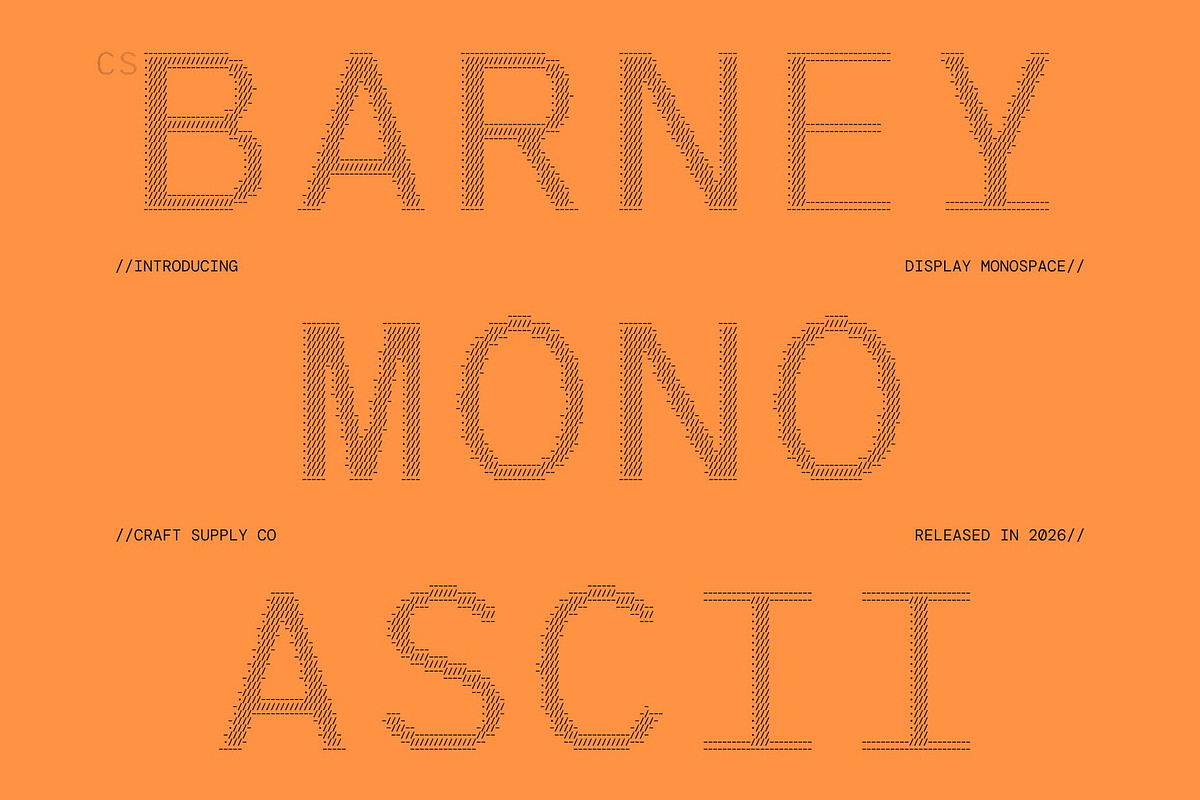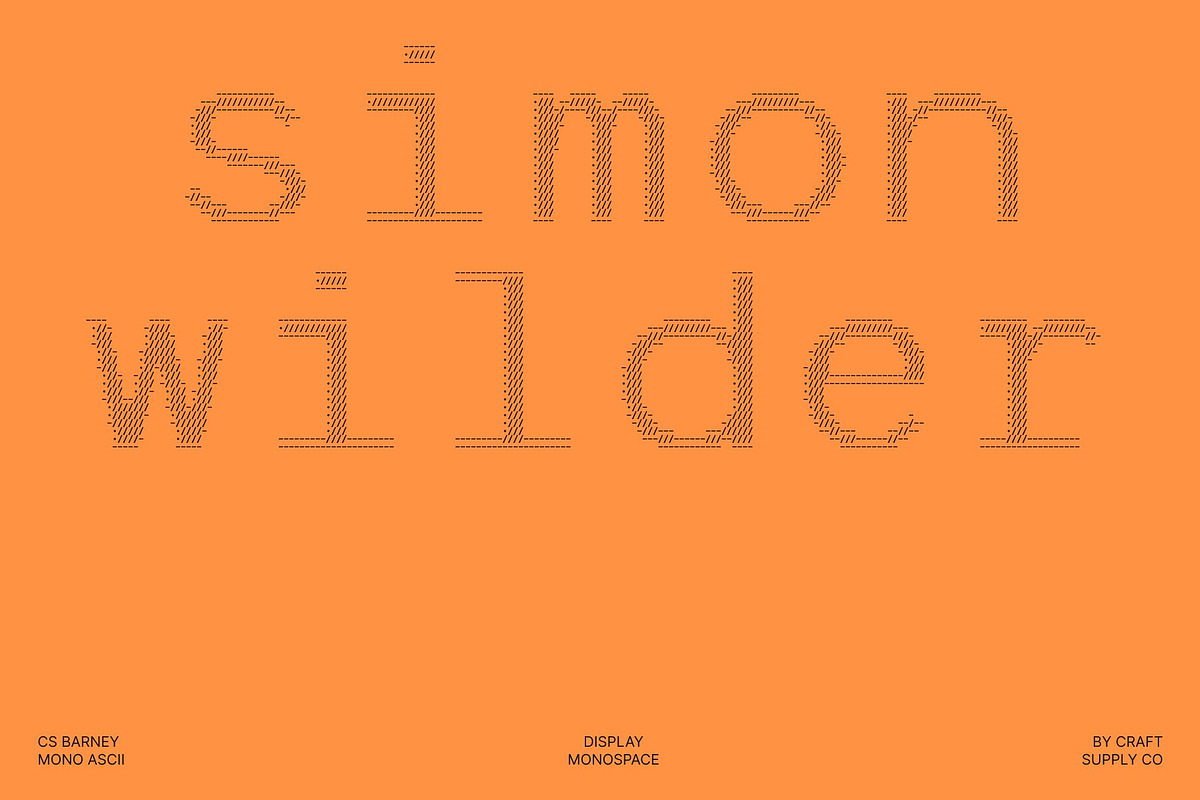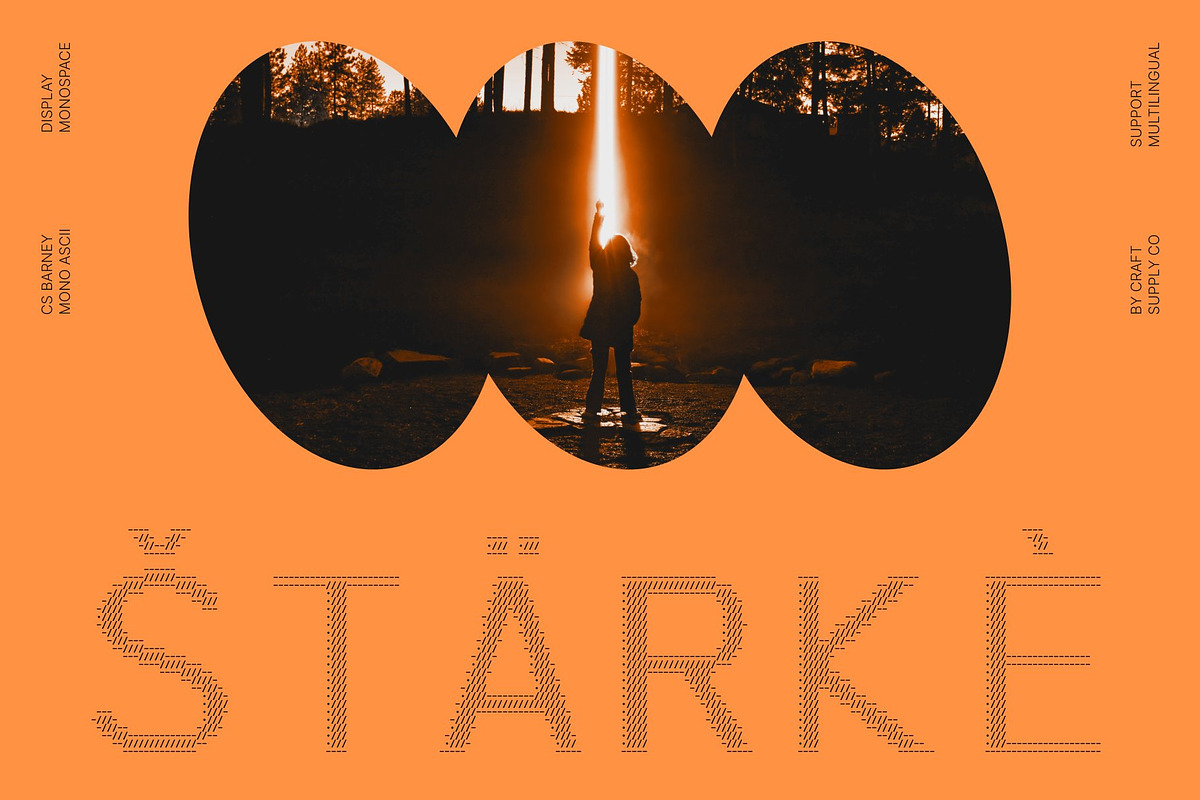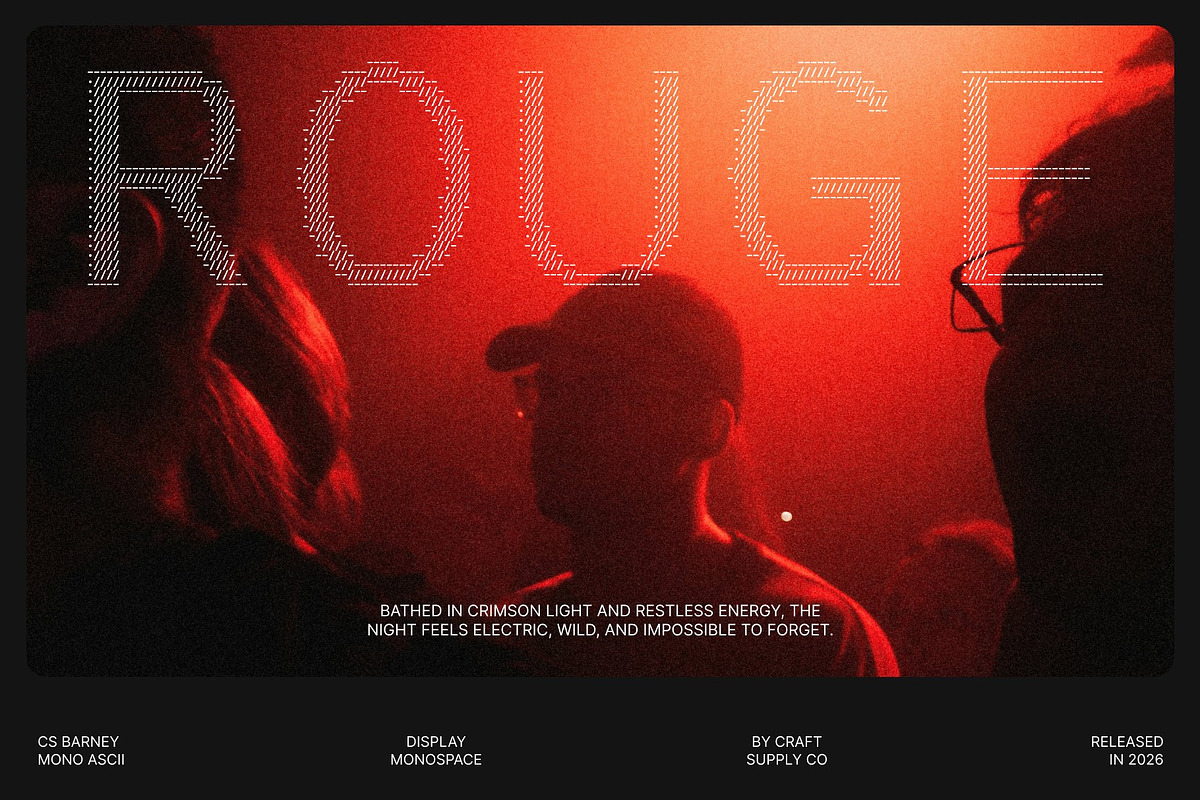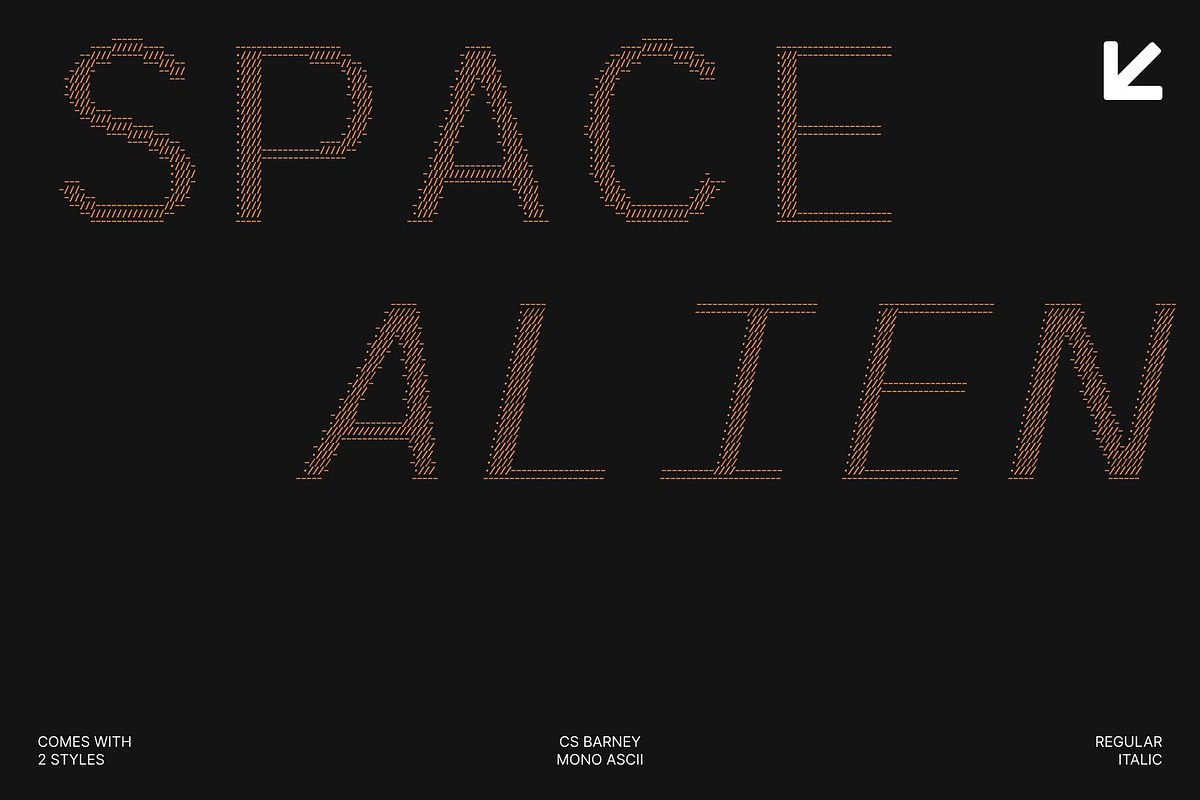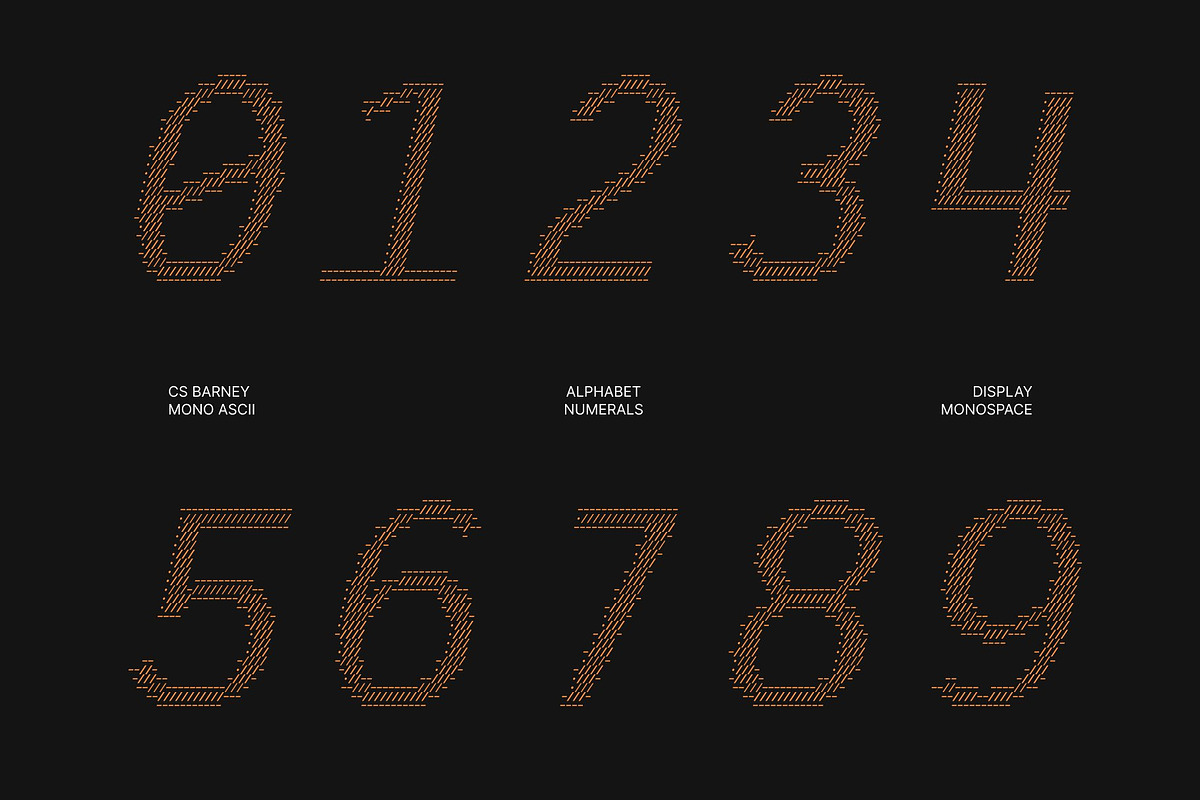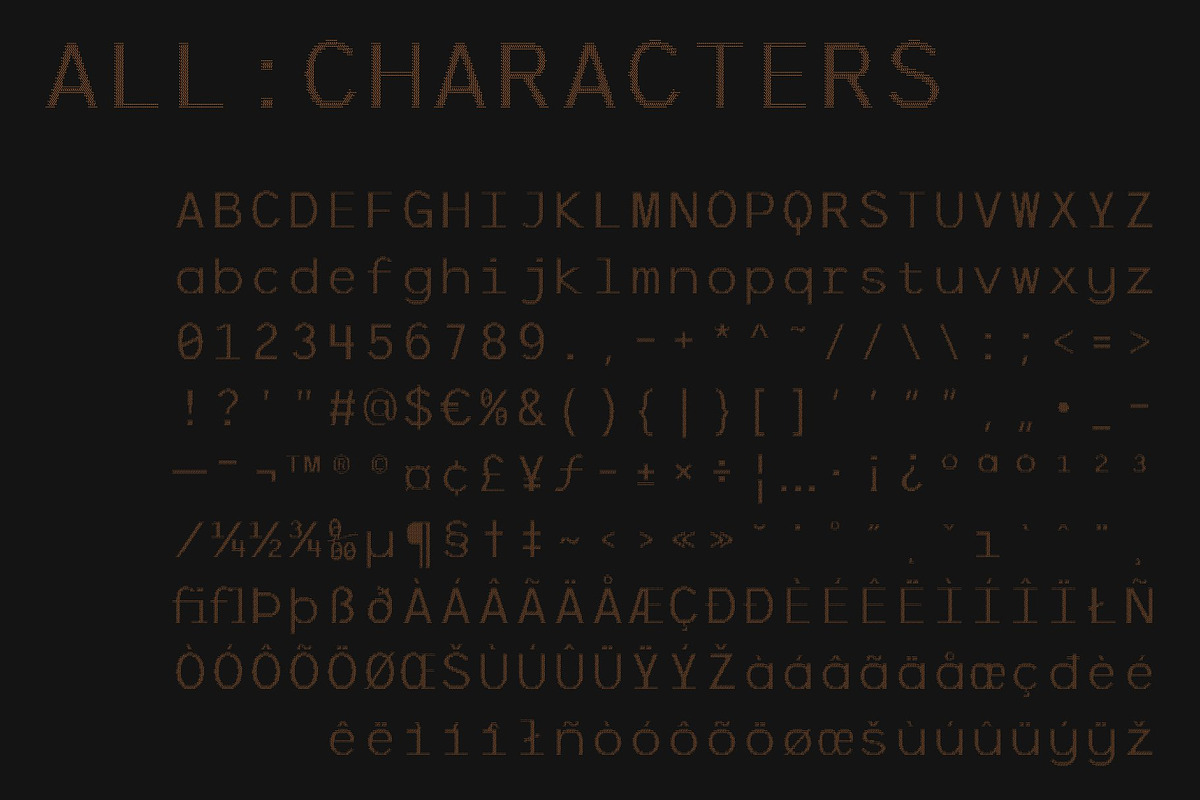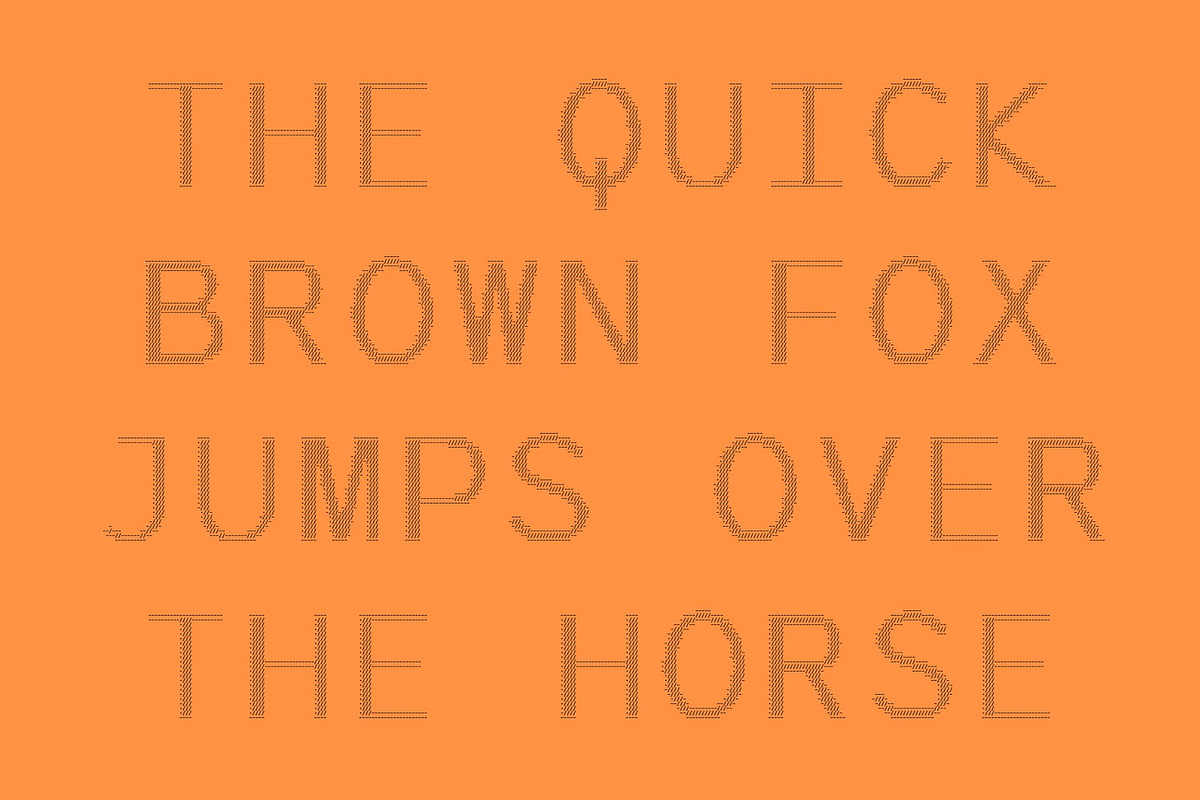
CS Barney Mono Ascii
CS Barney Mono Ascii – Modern Monospaced Sans Serif Font: Where Structured Precision Meets Digital ASCII Art
Uniform Monospaced Forms with Clean Technical Structure This is a modern monospaced sans serif font designed with consistent letter spacing that ensures a neat, structured, and highly organized appearance. Its balanced monospaced construction creates excellent clarity and precision, making the font ideal for technical layouts, coding environments, and contemporary digital interfaces. Every character feels clean, modern, and intentionally crafted for readability.
ASCII Style with Symbolic Digital Expression This font transforms typography into decorative compositions built from arranged characters and symbols. Inspired by terminal graphics and text-based digital art, the font creates image-like textures and cyber-inspired visuals while preserving the structured logic of monospaced typography. This symbolic styling adds a retro-computing atmosphere blended with futuristic digital aesthetics.
Technical Precision with Retro-Digital Energy Blending clean monospaced forms with ASCII-inspired detailing, this font delivers a typographic identity that feels technological, functional, and visually immersive. Its structured spacing and symbolic styling evoke programming interfaces, coding terminals, retro gaming systems, and developer-focused digital environments.
Perfect for Coding, Interfaces, and Technical Design This is ideal for coding, programming, technical layouts, terminal UI concepts, developer branding, tech presentations, digital interfaces, retro-futuristic graphics, and experimental visual systems. Its ASCII-styled monospaced forms make it perfect for logos, streaming visuals, coding event graphics, software branding, and futuristic promotional materials.
CS Barney Mono Ascii Regular
CS Barney Mono Ascii Italic